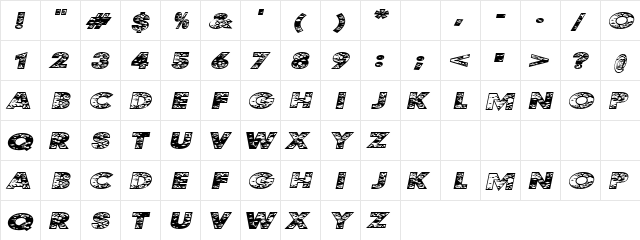
Fury Regular Font Preview
Fury Regular
Design Context for Fury Typeface
Fury is a composed and adaptable typeface that performs quietly and consistently across a wide range of design contexts.